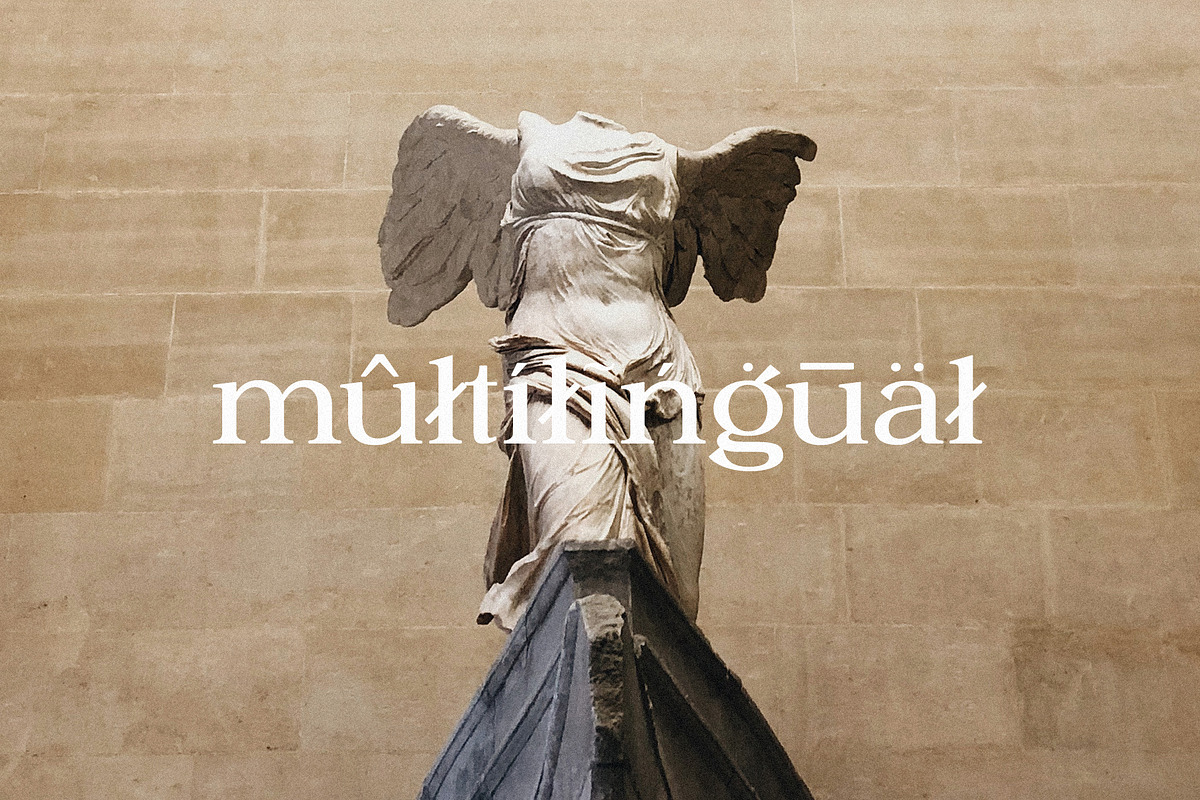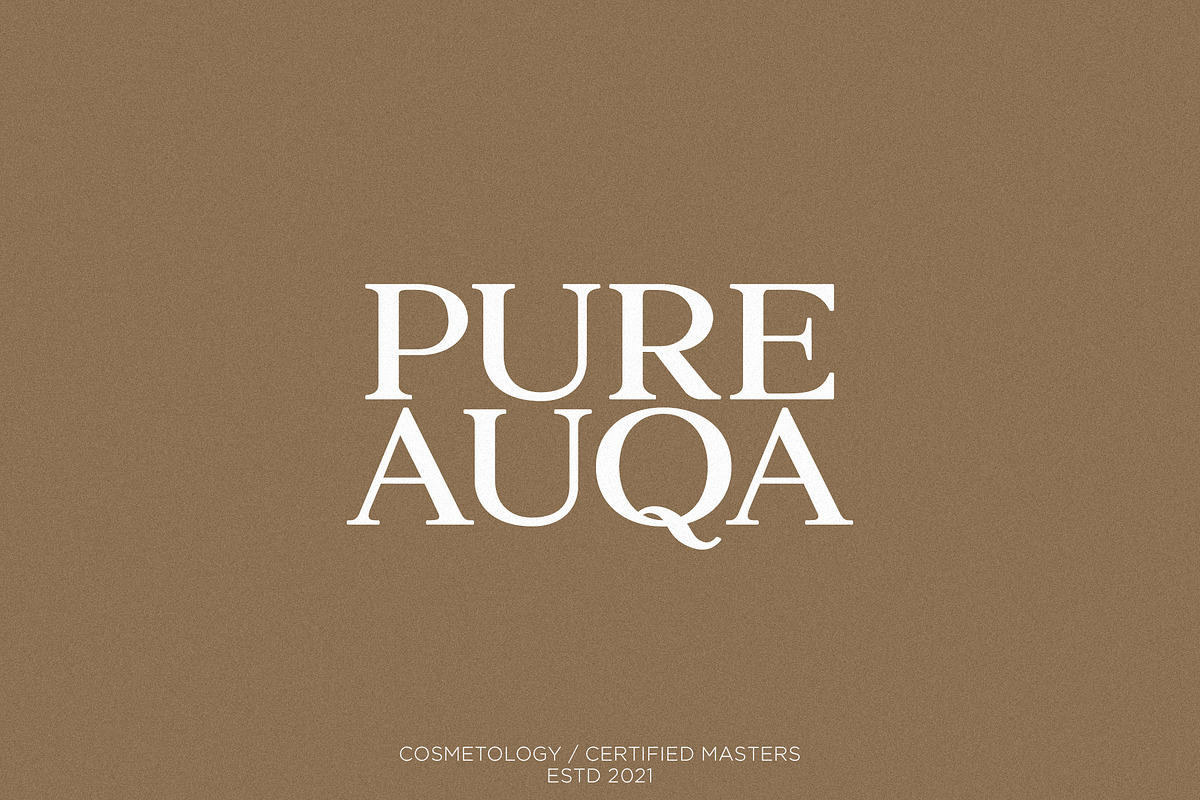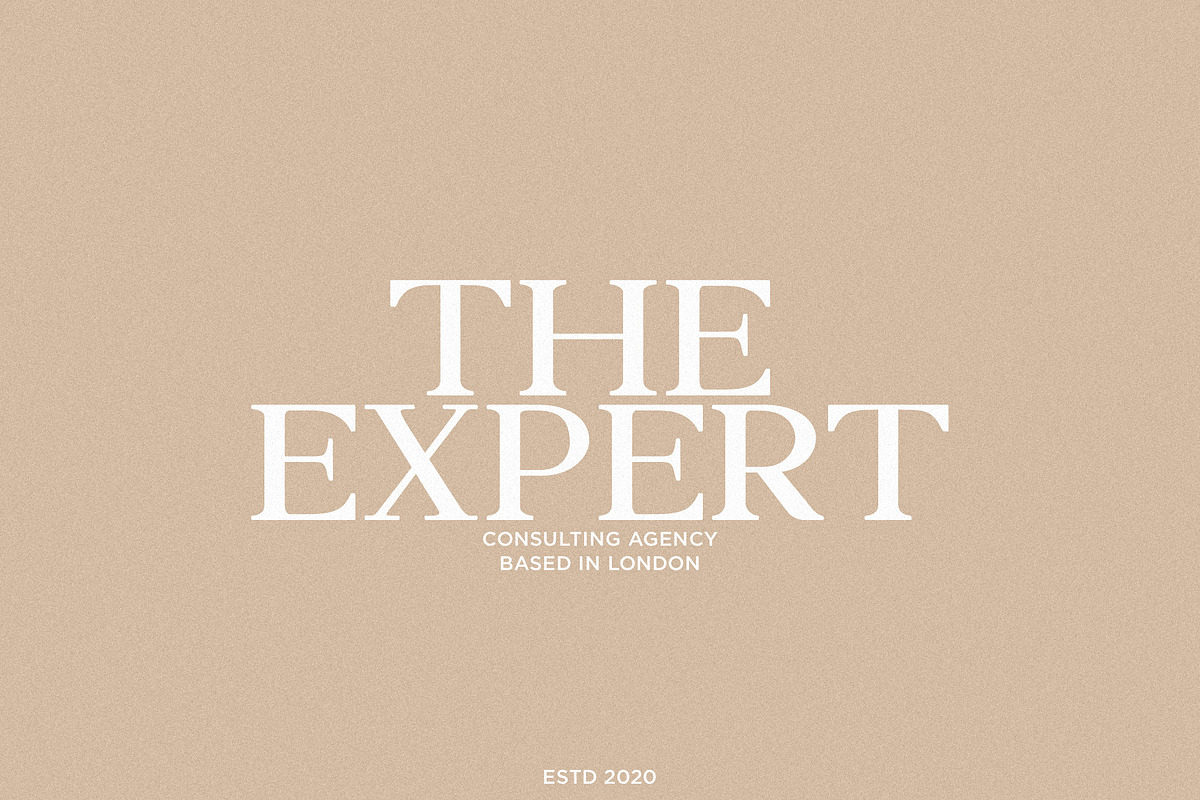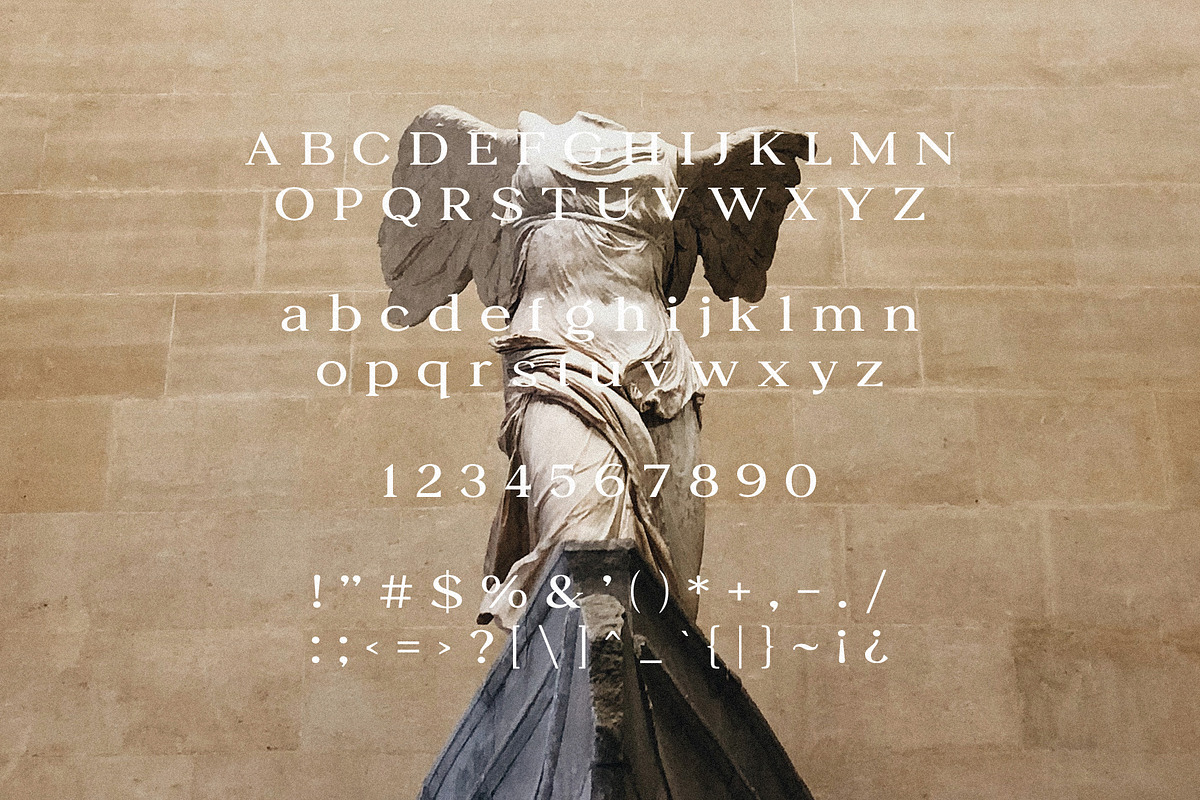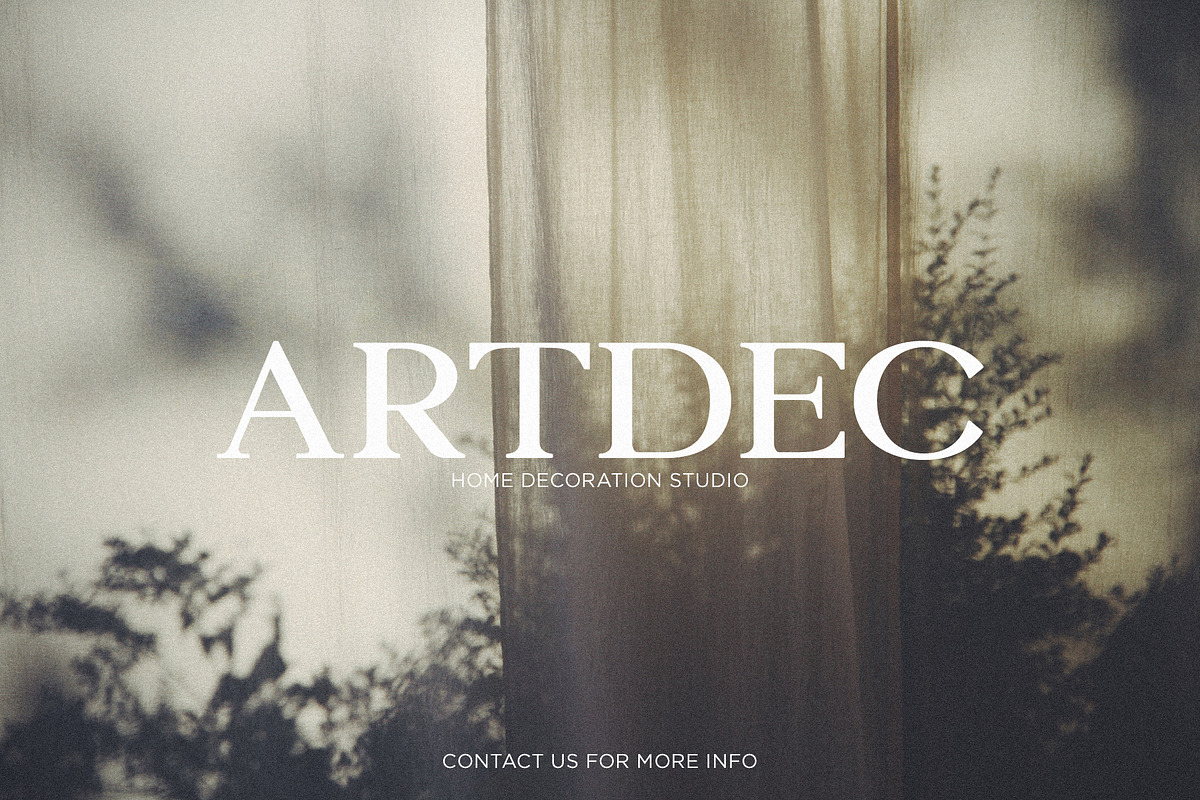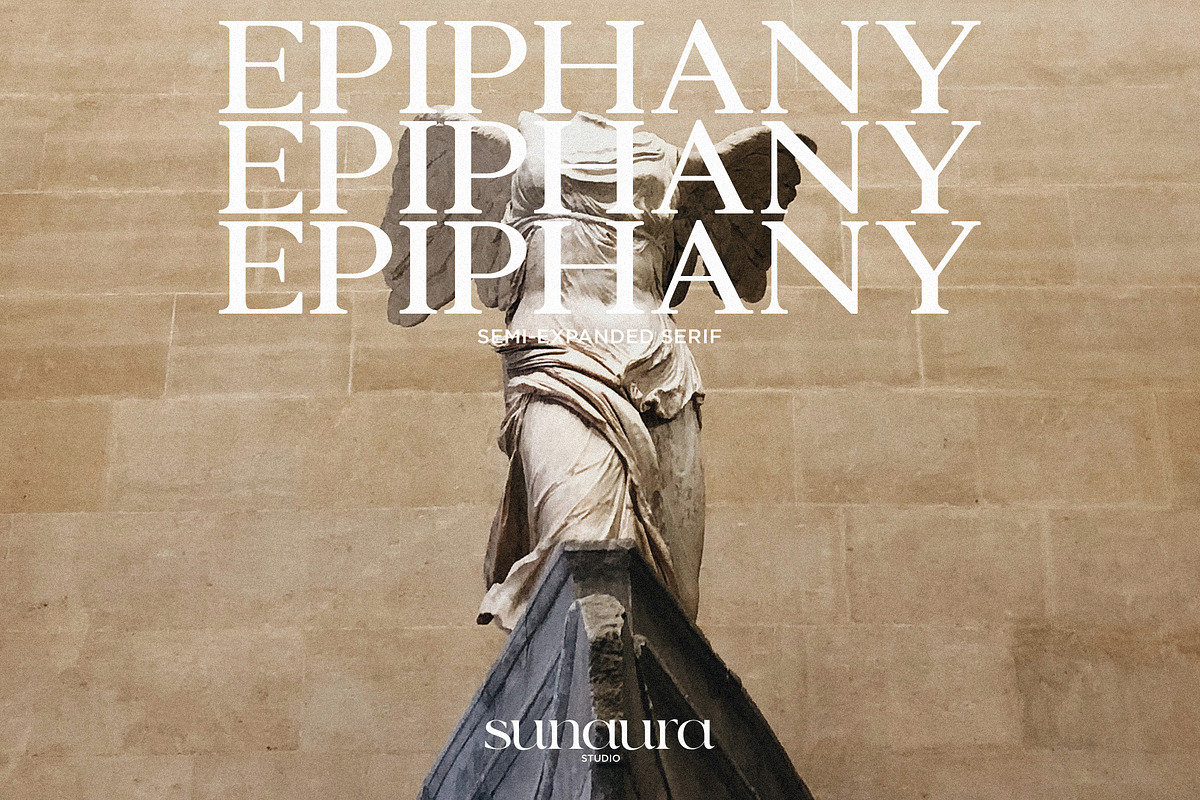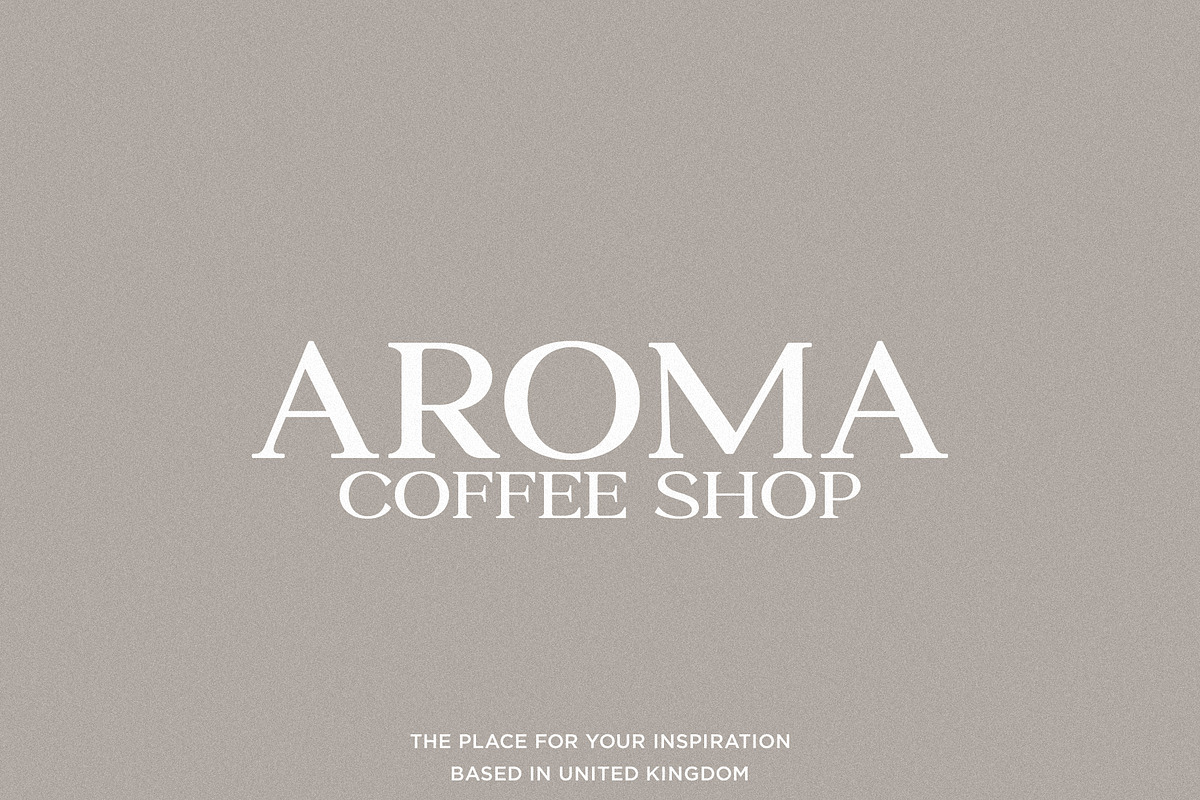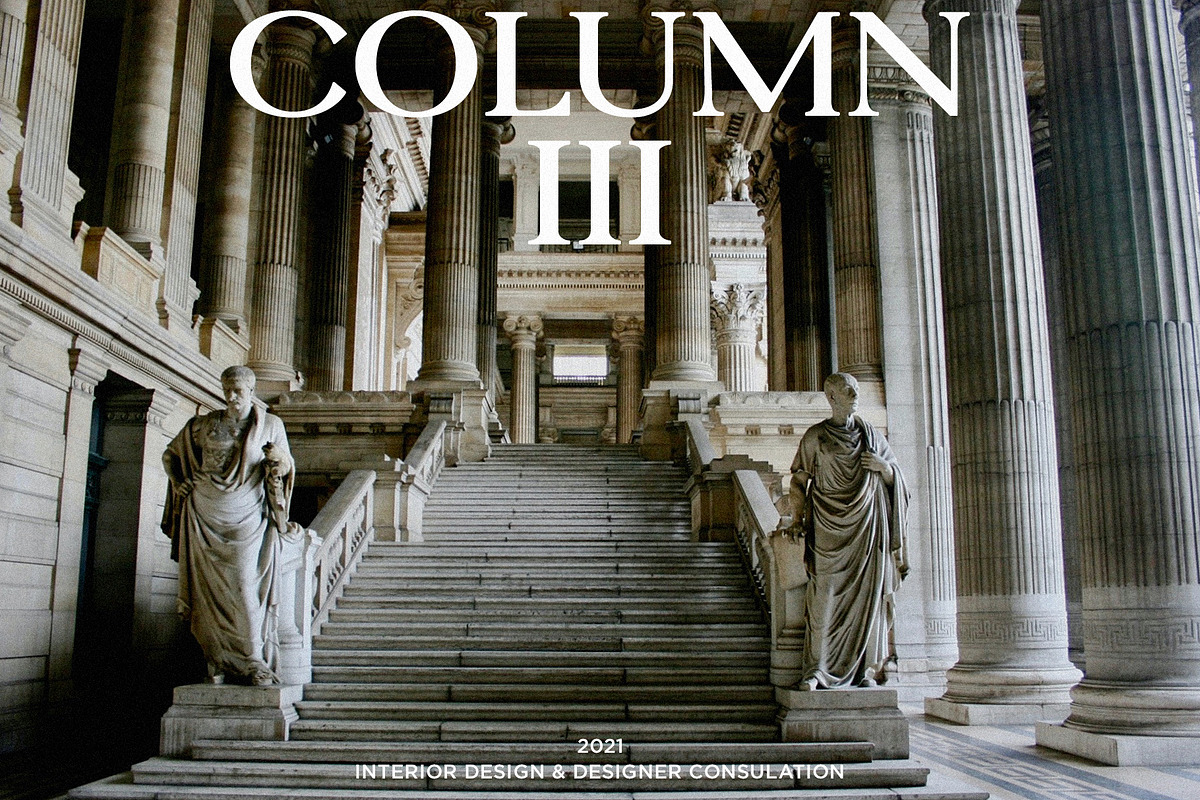
Epiphany - Semi-Expanded Serif
Epiphany is a semi-expanded serif typeface that combines traditional elements with a modern twist. It features elegant and sophisticated letterforms with slightly wider proportions, making it ideal for both body text and display purposes. The typeface exudes a sense of classic refinement while also offering a contemporary feel, making it versatile for various design projects. Epiphany features multilingual support, over 250+ glyphs, uppercase & lowercase letters, numbers & symbols.